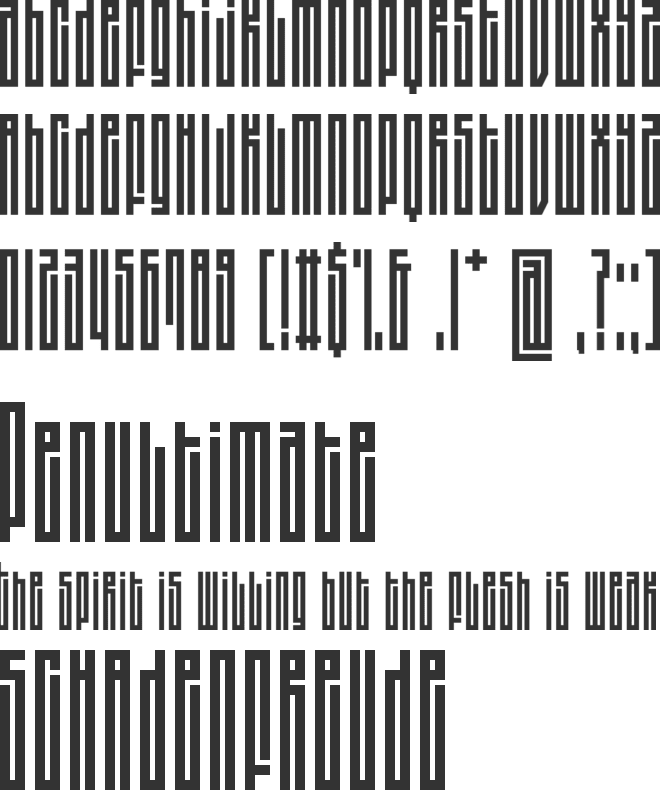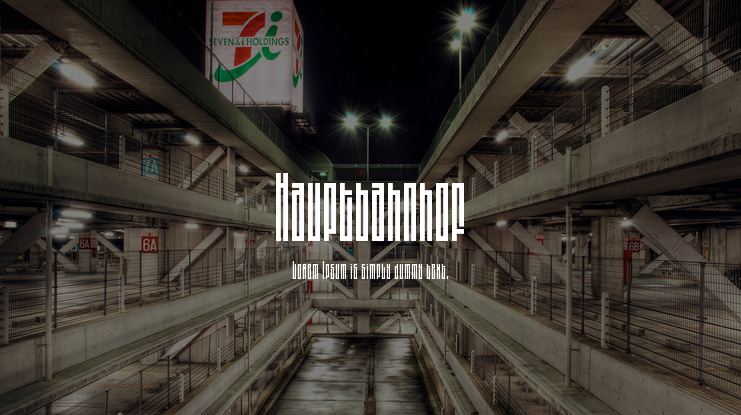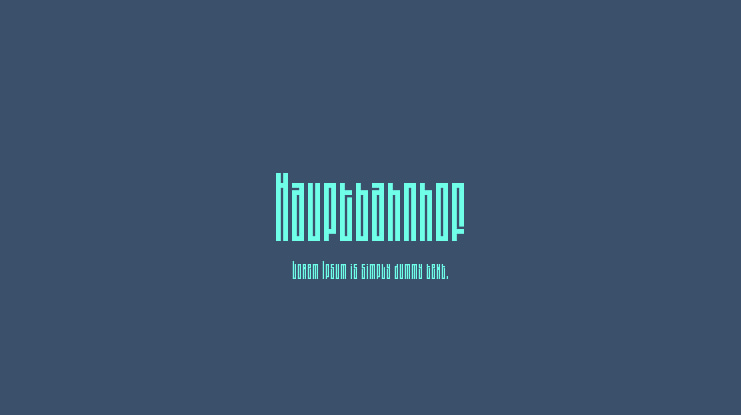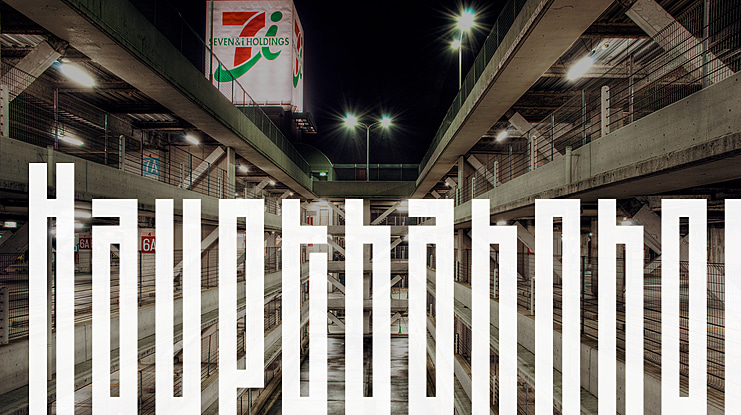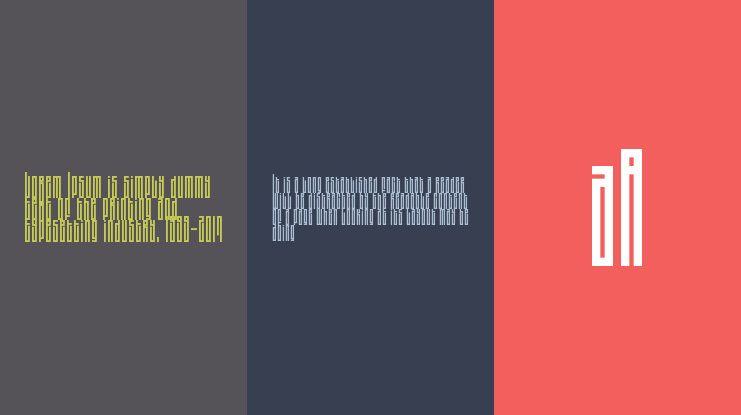
Hauptbahnhof Font Family
Frédéric Rich
Hauptbahnhof is inspired by graffiti from my area.
Hauptbahnhof font preview
Hauptbahnhof Regular font
Hauptbahnhof Reverse Regular font